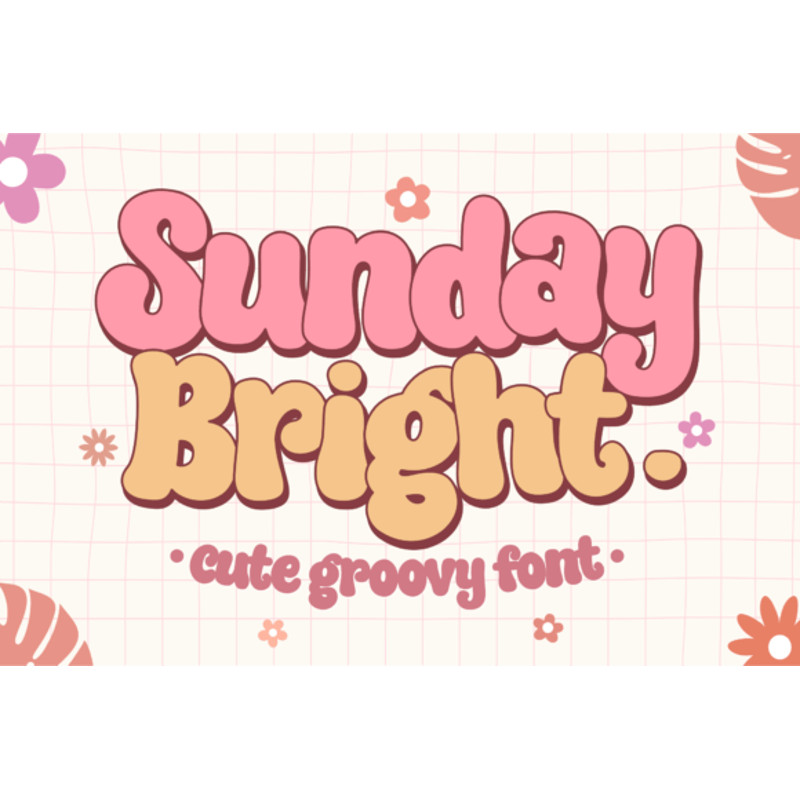
Sunday Bright Font
Sunday Bright is a fun and cute groovy font, inspired by retro bold typography. This font is perfect for a design that requires a playful and fun accent. Sunday Bright is suitable for book covers, posters, packaging, merchandise, logotype, and much more.